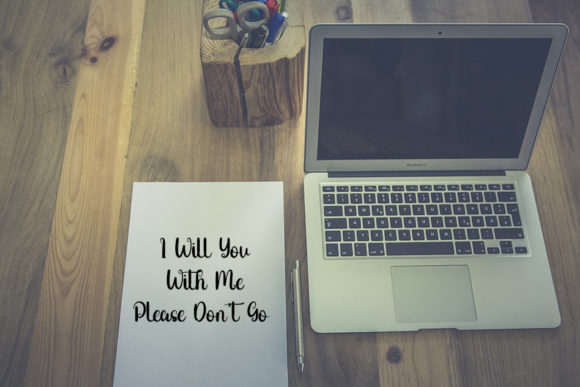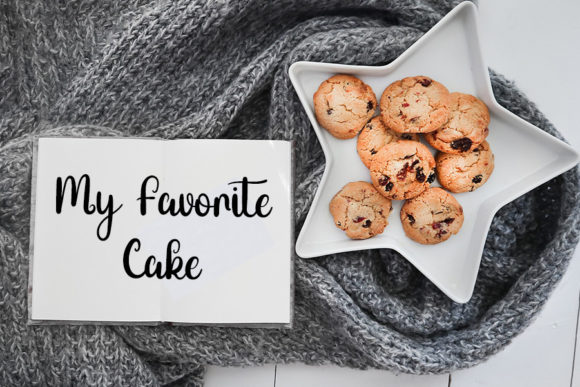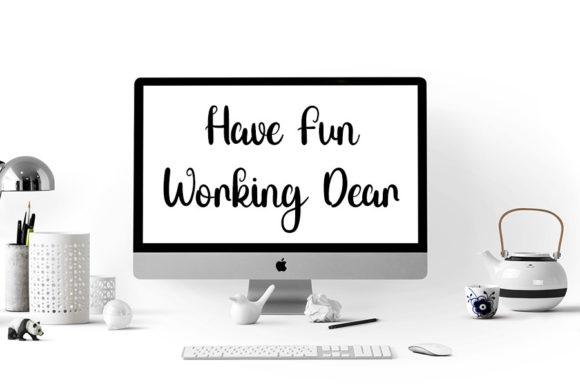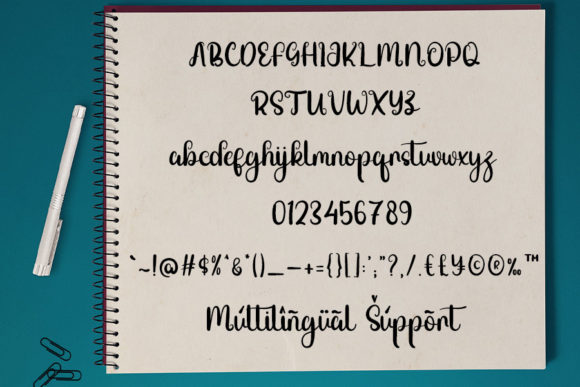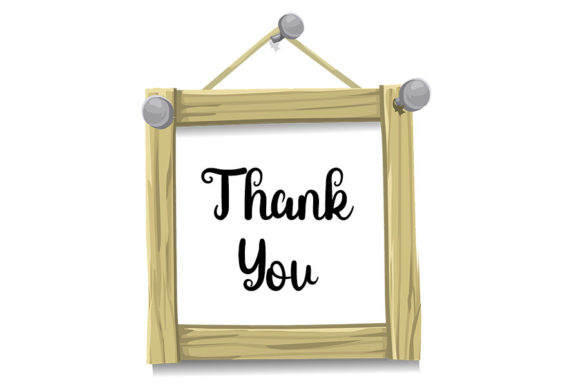
Glamour Font: Elevate Your Designs with Timeless Elegance
In the world of typography, few fonts manage to capture the essence of classic calligraphy while still exuding a modern vibe. Glamour Font is one such exceptional typeface that seamlessly blends traditional elegance with contemporary flair. This stylish handwritten font, inspired by timeless classic calligraphy, brings an impeccable form and balanced variation to your designs, making it an indispensable tool for designers and crafters alike.
The Essence of Glamour Font
Glamour Font strikes the perfect balance between being too thin and too thick, a characteristic that sets it apart from many other fonts. Its lines are meticulously crafted to provide a sense of fluidity and movement, reminiscent of hand-written calligraphy, yet maintain a level of sophistication that is hard to achieve with digital fonts. This balance ensures that your projects stand out with a unique elegance, whether you’re working on branding, packaging, or digital content.
Key Features of Glamour Font
- Contemporary Atmosphere: Despite being inspired by classic calligraphy, Glamour Font carries a contemporary atmosphere that makes it versatile for modern design projects.
- Impeccable Form: The font’s design emphasizes impeccable form, ensuring that every letter and word looks aesthetically pleasing on its own and in combination with other typography.
- Balanced and Varied: The balanced thickness and varied strokes of Glamour Font add a dynamic feel to your designs, preventing them from looking monotonous or flat.
- Versatility: Glamour Font can be used across a wide range of projects, from luxury branding and high-end product packaging to elegant stationery and stylish digital content.
Why Choose Glamour Font?
For designers and crafters looking to elevate their projects, Glamour Font offers several compelling reasons to be your top choice:
- Enhances Beauty: As described, Glamour Font was designed to enhance the beauty of your projects. Its elegant strokes and classic inspiration ensure that your work stands out with sophistication.
- Easy to Read: Despite its elegant and somewhat ornate appearance, Glamour Font maintains a high level of readability, making it suitable for both headings and body text.
- Unique Appeal: In a sea of digital fonts, Glamour Font offers a unique appeal that can help your projects differentiate themselves from the competition.
- Time-Saving: With Glamour Font, you don’t have to spend hours designing custom typography. This ready-to-use font saves you time without compromising on style or quality.
Using Glamour Font in Your Projects
Tips for Maximizing Impact
- Pair with Simplicity: Glamour Font shines when paired with simple backgrounds or design elements. Avoid clutter to let the font’s elegance take center stage.
- Experiment with Colors: While classic black and white combinations work well, don’t be afraid to experiment with colors that complement the tone of your project.
- Consider Hierarchy: Use different sizes of Glamour Font to create a visual hierarchy, ensuring that your message is clear and engaging.
Glamour Font is more than just a typeface; it’s a design statement that can elevate your projects with its timeless elegance and contemporary vibe. Whether you’re a professional designer or a crafter looking to add a touch of sophistication to your work, Glamour Font is an invaluable resource. Its balanced and varied strokes, impeccable form, and versatile nature make it the perfect choice for anyone aiming to create visually stunning and impactful designs.